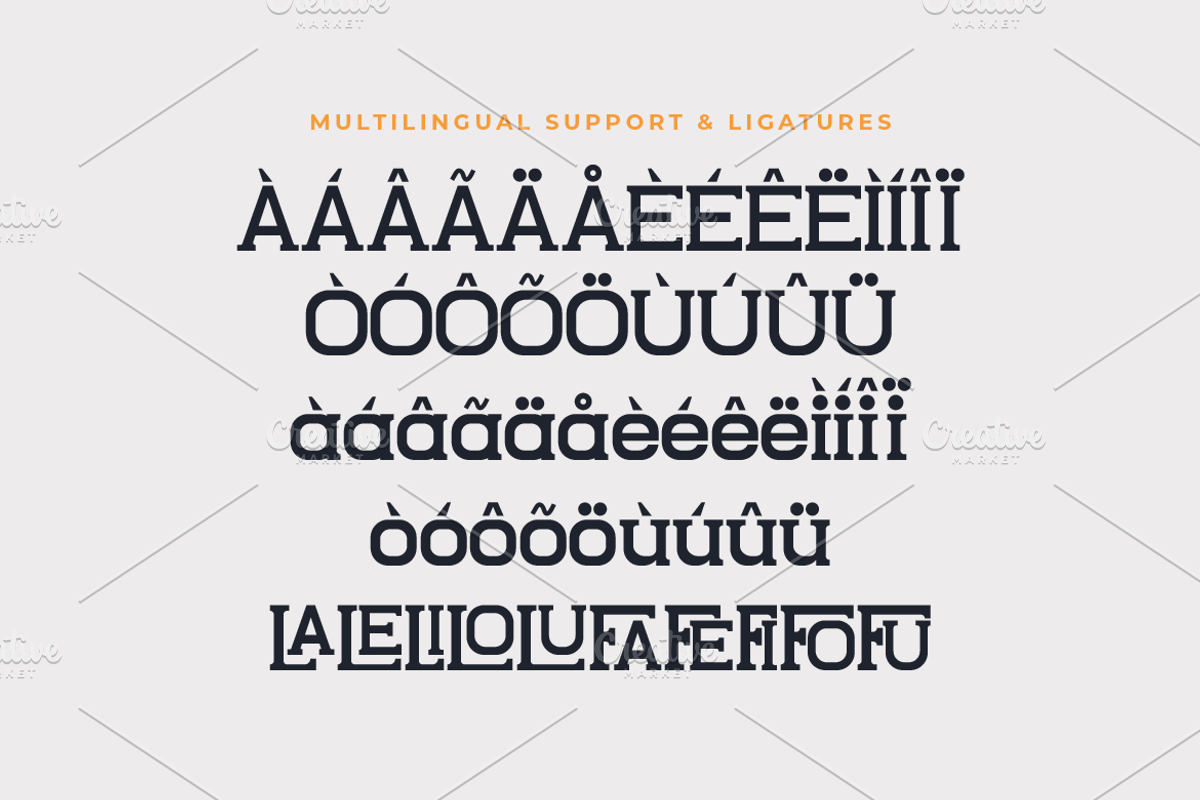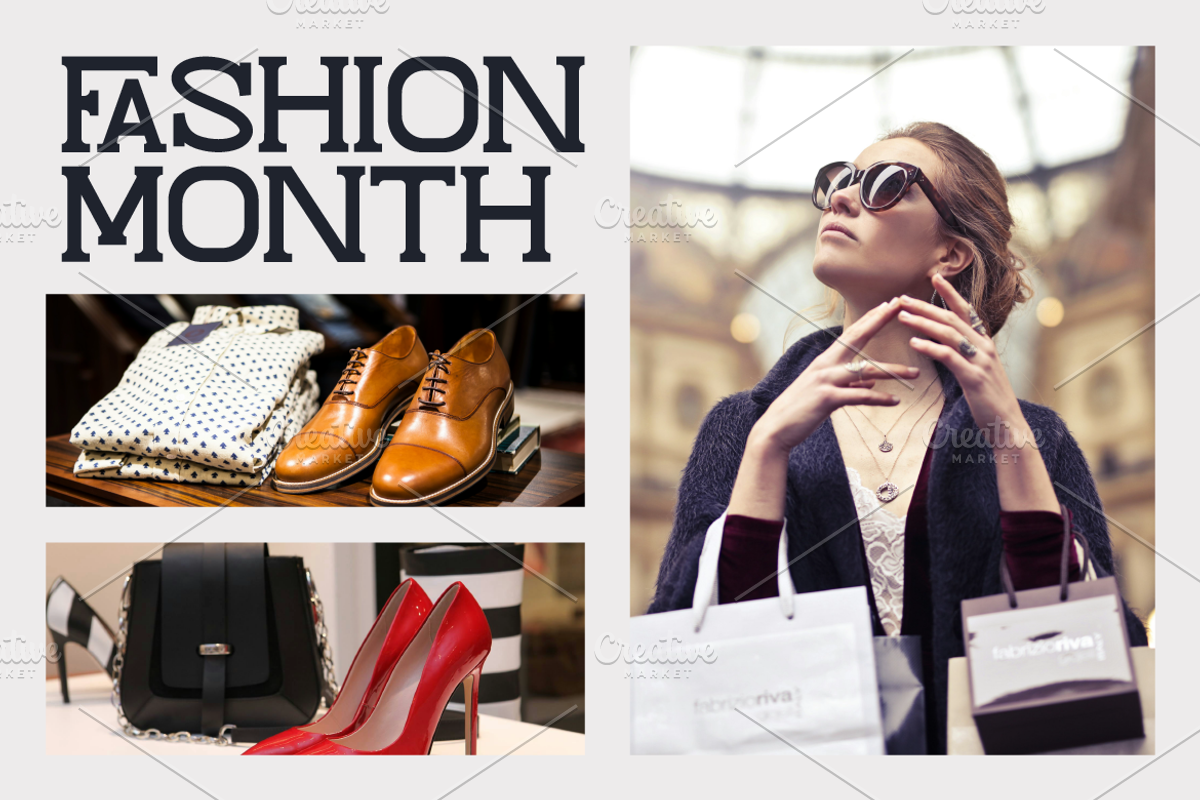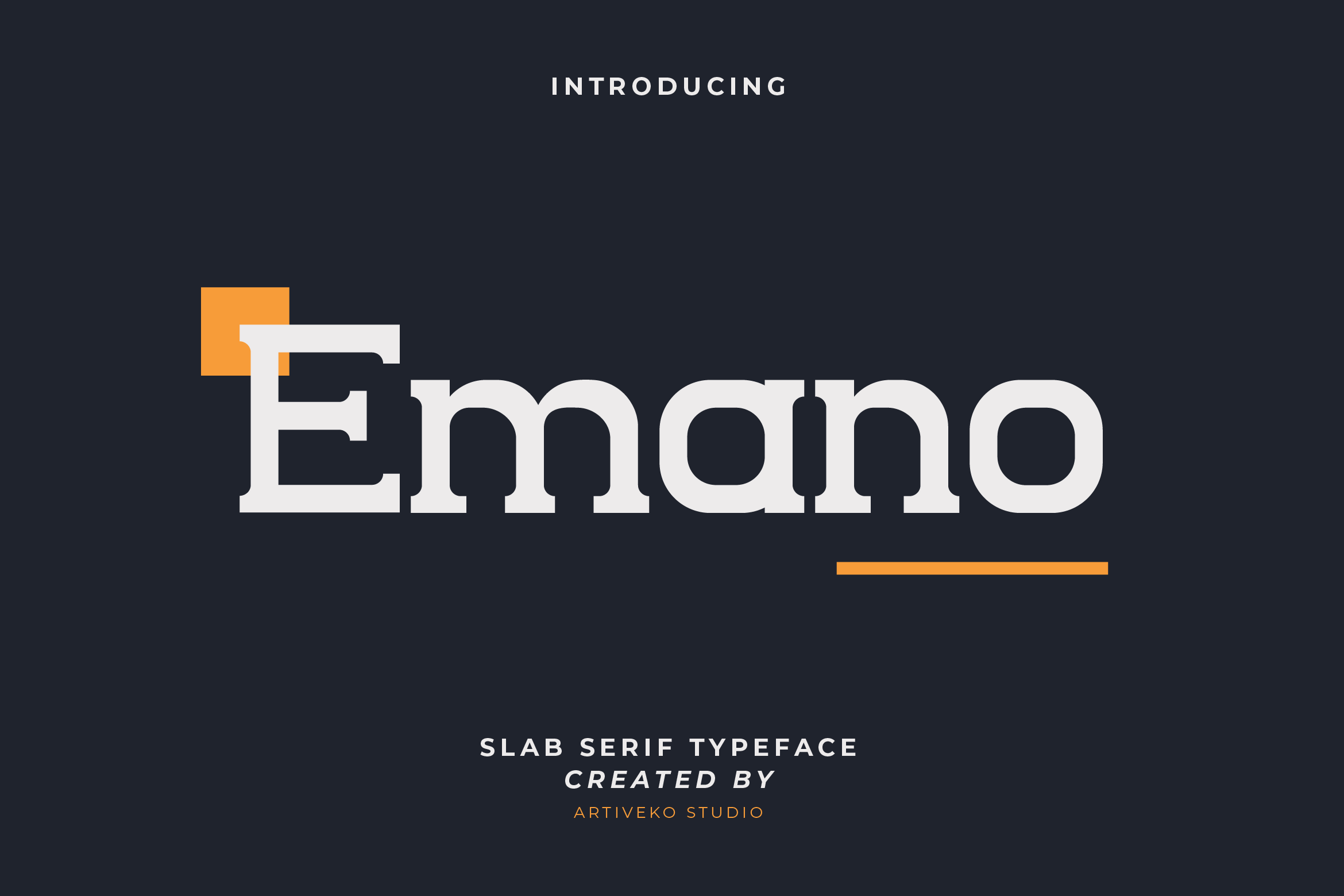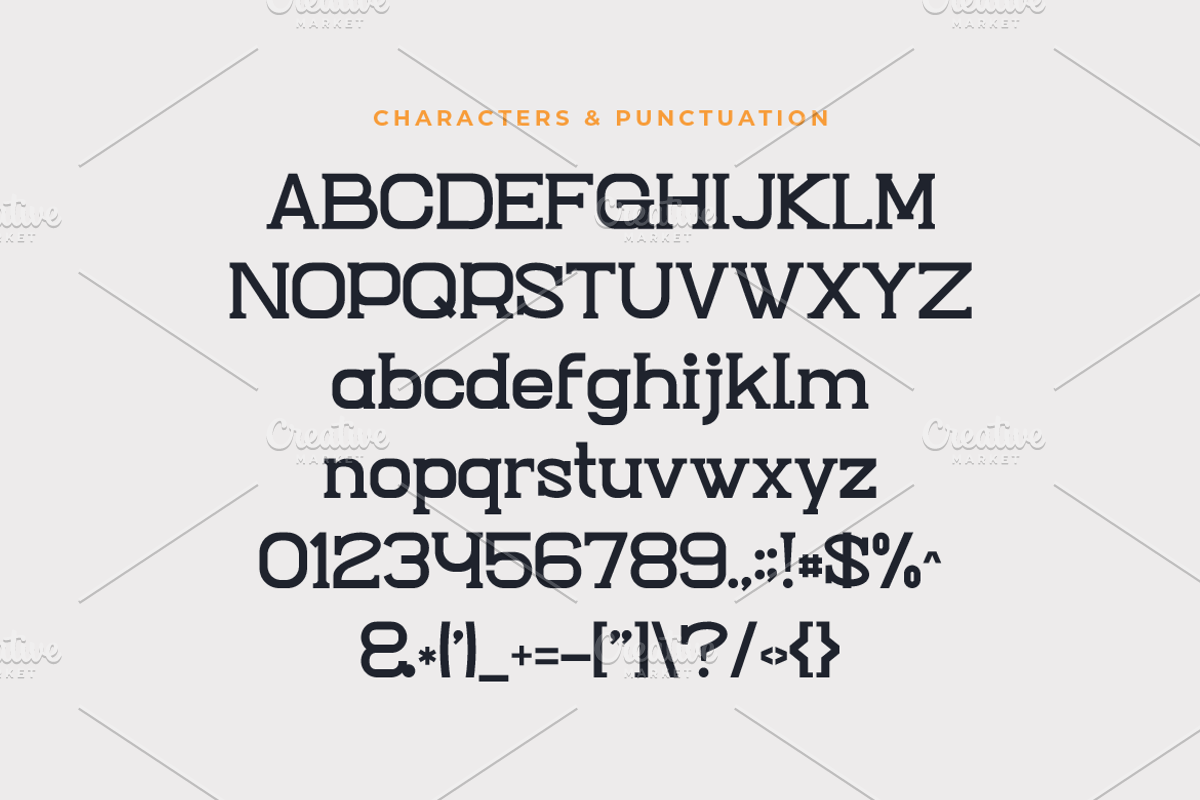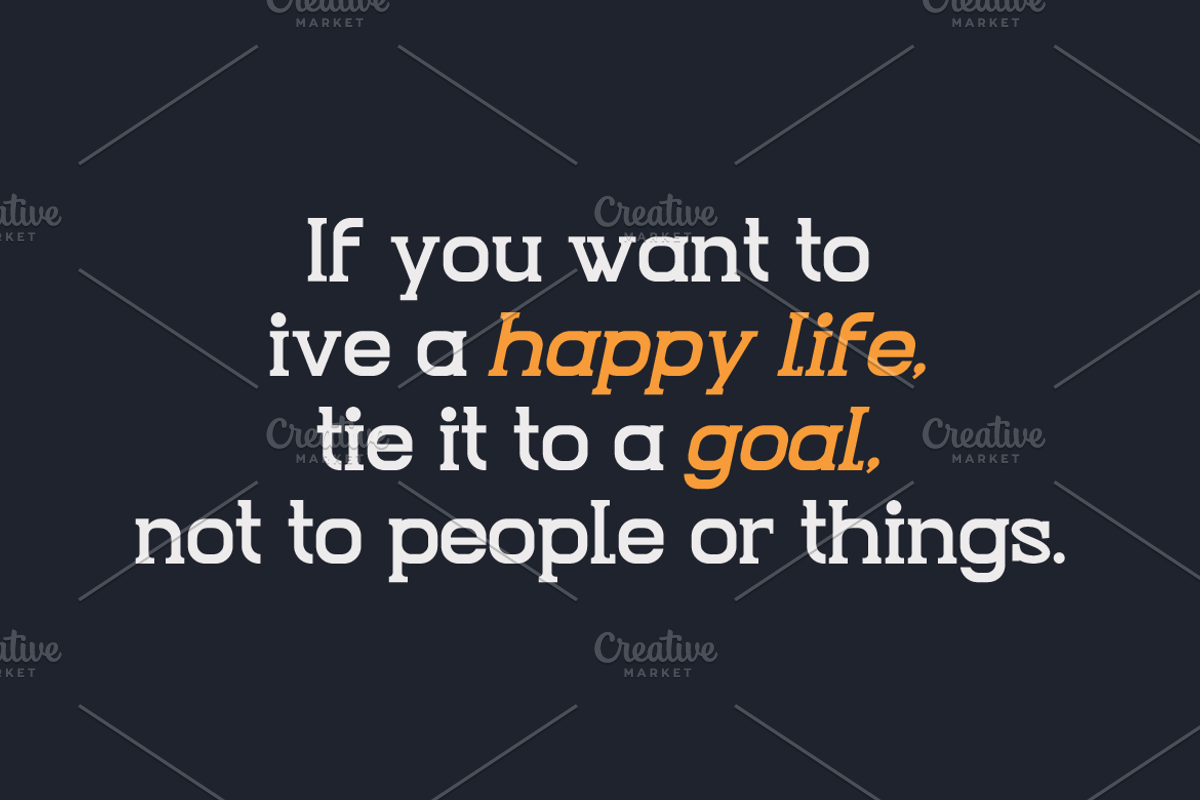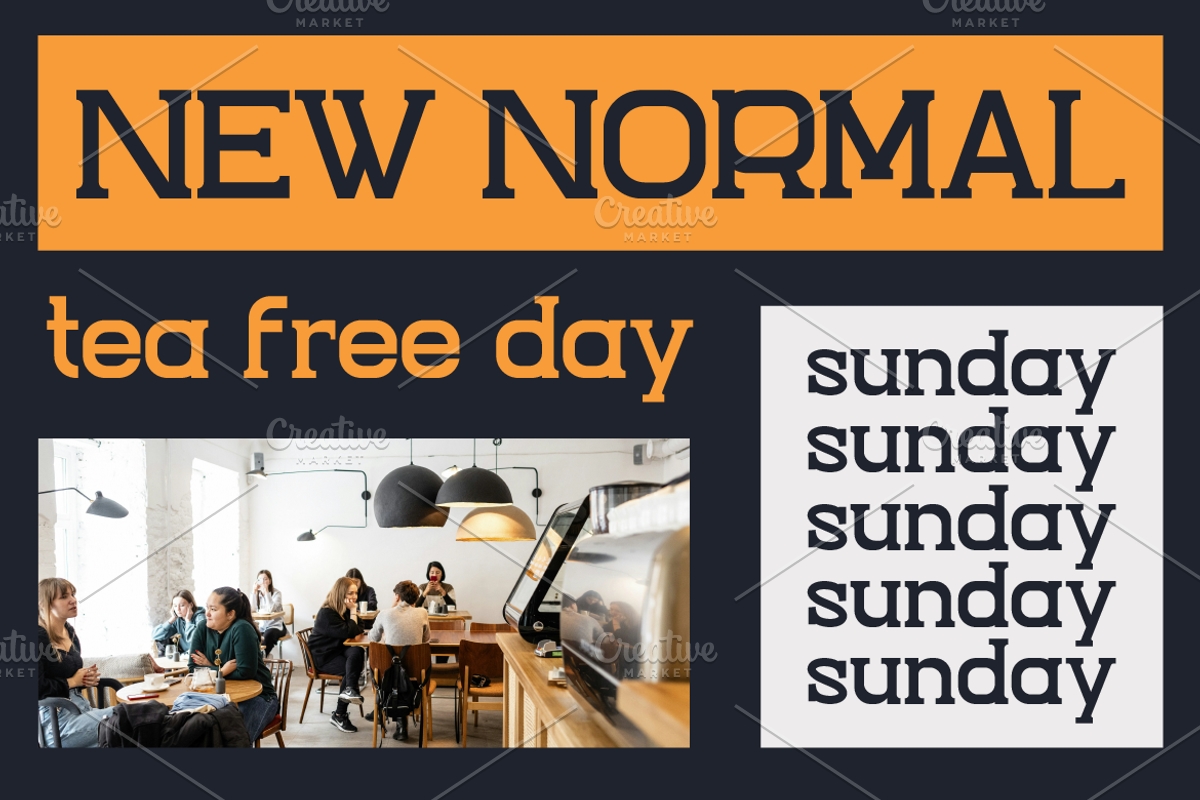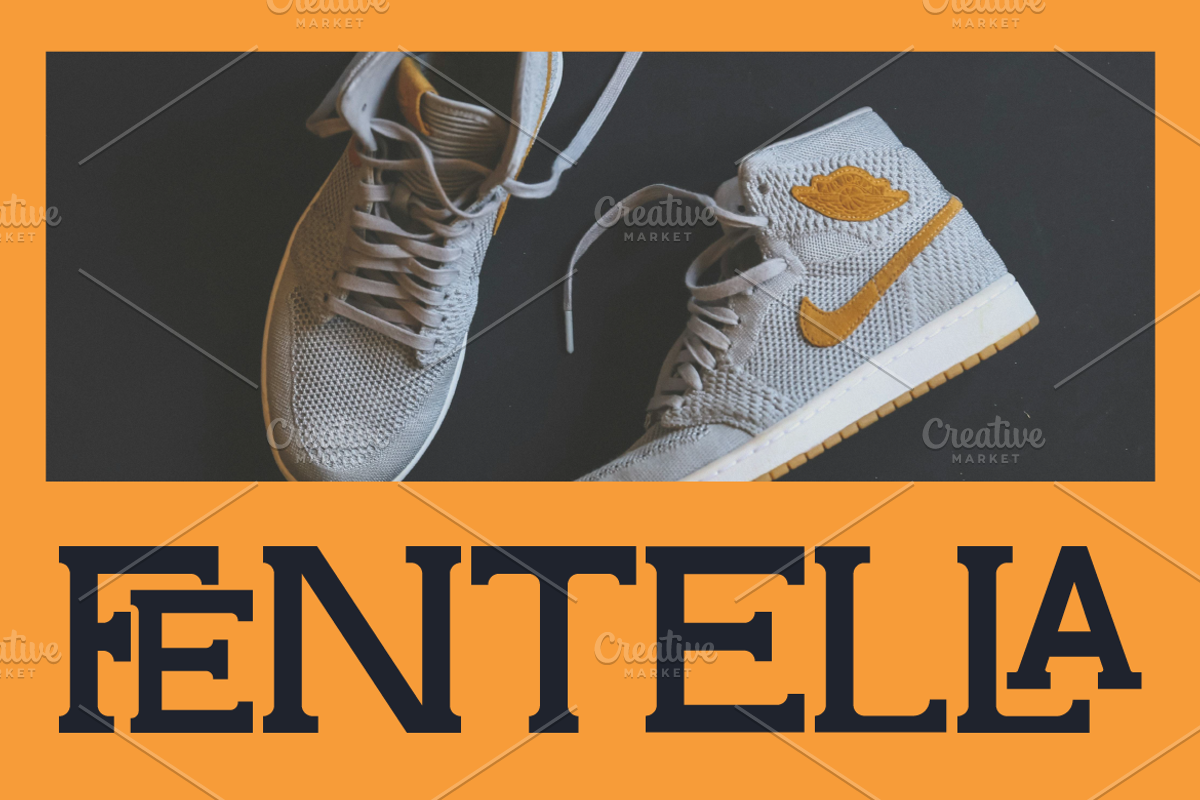
Emano Slab Serif Font
Emano is a distinctive slab serif font crafted by Iwan Alwan. Featuring unique shapes, it offers variations in uppercase and lowercase characters. With multilingual support and ligatures, Emano is designed to cater to diverse typographic needs. Its versatility and stylish design make it perfect for a range of creative projects, from branding to editorial use.